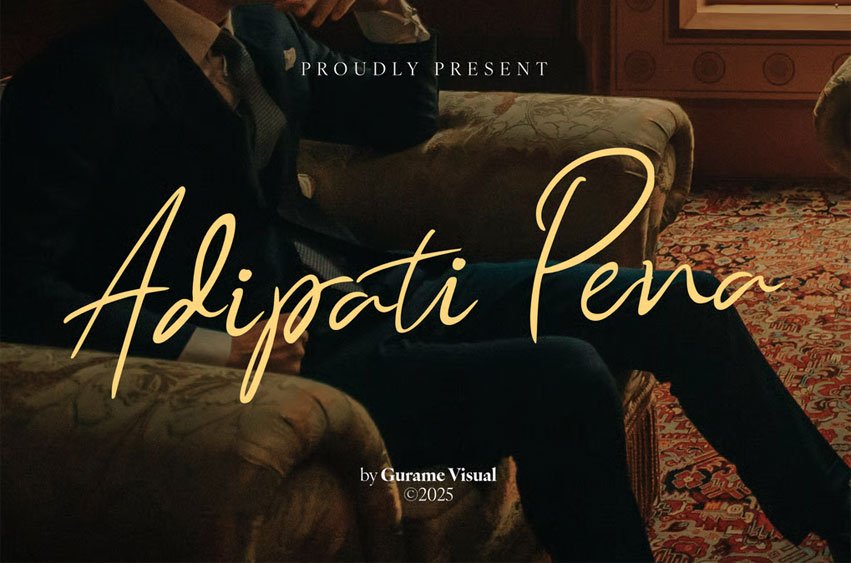
Adipati Pena Font is a stylish handwritten script font, perfect for adding a personal and elegant touch to your designs. With flowing strokes and natural curves, it’s ideal for branding, wedding invites, social media, and more. Featuring ligatures, alternates, and multilingual support, it brings sophistication and versatility to any project.
- Uppercase & lowercase characters
- Numbers & punctuation
- Ligatures & stylistic alternates
- Multilingual support (including accented characters)
- Elegant and modern handwritten style